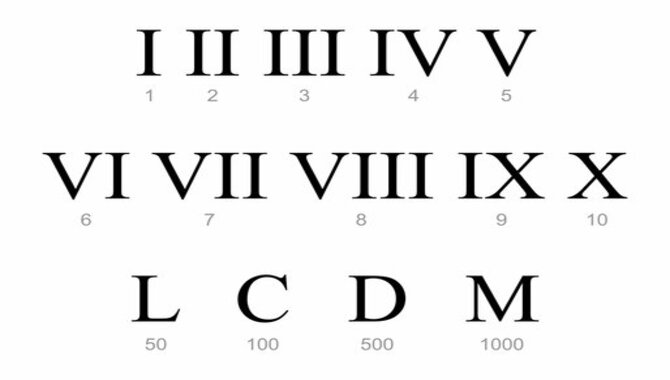
Fancy Roman numerals are the most beautiful form of text. They’re typically seen in books, documents, magazines, and newspapers.
They’re also used in celebration places such as weddings, graduations, and birthdays. Fancy Roman numerals are the fancy version of roman numerals. Unlike roman numerals, fancy roman numerals do not have repeating 0s.
These numeral styles are commonly used in books and newspapers to make it easier for the readers to understand the information. If you want to write fancy roman numerals in your documents and essays, you’ve come to the right place. Here we will discuss how to create Fancy Roman numeral fonts, tips, and tools to help you write them faster.
What Are Fancy Roman Numerals?
Fancy Roman numeral fonts are a way of showcasing the elegance and sophistication of the ancient numeral system. Ancient Romans originated the Roman numeral system and used it to count on fingers. It involves seven symbols, I, V, X, L, C, D, and M.
Roman numerals are globally recognizable and have various uses, such as indicating a work’s edition or part of a series. You can also personalize them onto necklaces as a birth date bar or engagement/wedding date charm.
You can add overlines to the Roman numerals to add one thousand for each “M,” making it easier to represent larger numbers. Fancy Roman numeral fonts add an aesthetic flair to whatever they are used for and unlock the beauty of Roman numerals, making them more accessible and understandable for modern audiences.
How To Create Fancy Roman Numerals?
Fancy Roman numeral fonts can add sophistication and elegance to any design. But creating them can seem daunting at first. Luckily, there are many ways to create fancy Roman numerals easily.
The Roman symbol keyboard is available on most devices, including online games. People in ancient Rome originated Roman numerals based on hand counting, and various fields have used them since then. Excel and Google Sheets have built-in formulas that you can use to convert numbers into Roman numerals.
Many sample Roman numeral fonts are also available for tattoos or graphic design. When creating Roman numerals, it’s essential to remember the standard symbols – I for 1, V for 5, X for 10, L for 50, C for 100, D for 500, and M for 1000. Get creative, and unlock the beauty of fancy Roman numeral fonts to add an edge to your designs.
Preparing The Document
Fancy Roman numeral fonts can add an elegant touch to any document or project. If you want to create them yourself, there are a few ways to start. First, you can use Excel or Google Sheets to convert numbers to Roman numerals with the “=ROMAN(CELL)” formula.
Alternatively, you can use a text symbol keyboard to select and copy Roman numerals and then paste them into any application. If you want to change the style and location of page numbers, you can use the \pagenumbering command and the fancyhdr package.
Write dates in Roman numerals with a delimiter, such as a dot or a slash. To create a polished final product, it’s important to practice mistake-free writing and polish your grammar. With these tips, you can unlock the beauty of fancy Roman numeral fonts and add a sophisticated touch to any project.
Adding The Numeral Styles
To create fancy Roman numerals, start by learning to type the symbols on any device or application. Once you understand the symbols, you can add different styles to your numerals to make them stand out.
The evolution of Roman numeral fonts has included cursive styles, which are particularly popular in tattoos. With a free and easy-to-use Roman numeral font generator, you can choose from multiple font styles and preview each before deciding on your favorite. Whether you’re creating something for personal or professional use, a Roman numeral font can help you unlock the beauty of this classic font.
Applying The Numeral Styles To Text
If you want to add a touch of elegance to your typography, fancy Roman numeral fonts are a great option. You can create fancy Roman numerals easily, and there are multiple ways to achieve this. One way to create fancy Roman numerals is to change the style of page numbers. You can use the Arabica, alphabetic, or Roman numeral styles. The fancyhdr package can change the location of the page numbers.
You can use a symbol keyboard to type or paste Roman symbols. People commonly use these symbols for labeling and indicating purposes. PicsArt also provides a quick and easy way to copy and paste Roman numeral symbols. By applying these numeral styles to your text, you can unlock the beauty of fancy Roman numeral fonts and add a touch of sophistication to your typography.
Customizing The Look And Feel Of The Numeral Styles
Roman numeral symbols are a classic way to label and stylize anything from wedding invitations to fashion brand logos. Fancy Roman numeral fonts take this to the next level, with many different customizations available to match any style. One such font is the Bohemian Stylish Luxury Serif Font, which radiates class and elegance. It’s perfect for special occasions and high-end design needs.
The Roman Sophisticated Serif font is another option. It features smooth curves and neat lines, making it ideal for logos and product packaging. There are many ways to incorporate fancy Roman numeral fonts into your designs. You can use apps like Picsart to copy and paste the symbols or shop online for specific fonts that match your aesthetic. No matter how you use them, fancy Roman numeral fonts are a great way to add a touch of sophistication to your designs.
Tools For Writing Fancy Roman Numerals
Fancy Roman Numeral fonts are a great way to bring a touch of classic elegance to your writing. Various tools are available to help you write roman numerals easily. You can use a roman numeral keyboard, which allows you to add roman numerals to any device or app. The roman numeral system, which originated in ancient Rome, uses seven symbols to represent numbers.
People used Roman numerals as a numeral system until the late middle ages. Roman cursive is an example of the evolution of the roman font. You can use fancy Roman Numerals for tattoos; various font generators are available to help you choose the perfect font for your ink. However, it’s important to note that the traditional roman numeral system can only represent numbers up to 3,999.
Tips For Making The Most Of Your Fonts
Using fancy Roman numeral fonts can enhance the look and feel of any design or project. From personalized gifts to unique jewelry, there are numerous ways to make the most of your fonts. Shopping for Roman numeral fonts offers a range of possibilities, including customizing bar necklaces with font options and platings, downloading embroidery fonts with multiple sizes and formats, and purchasing SVG cut files and clip art for various projects.
Do you want to create unique designs for tattoos? Roman numeral tattoo stamps with Procreate brushes can be a game-changer. You can also explore innovative ways to incorporate Roman numeral fonts into your DIY projects, such as home decor or party invitations. These fonts are becoming increasingly popular, and rightly so. Unlock the beauty of fancy Roman numeral fonts and give your creations an added touch of elegance and sophistication.
Fancy Roman numerals are a perfect way to spice up your documents. You can use them for various applications, from business reports and articles to creative designs. They’re versatile and easy to read so you can use them in any document. Fancy Roman numeral fonts not only look great, but they also help you make an impact with your writing and design.
Fancy Roman Numerals are versatile typefaces that can be used for any writing. They’re especially ideal for short, simple texts and logos. Whether you need numerals to stand out in a busy font lineup or want to try something new and unique, Fancy Roman Numeral fonts are a great option.
1. What Is The Best Font For Roman Numerals?
Ans: It completely depends on personal preference and the context in which Roman numerals will be used. However, some popular font styles for Roman numeral use include Metal typeface, Century Gothic, and Univers.
2. Is There A Roman Numeral Font?
Ans: Yes, there is a Roman numeral font! The Roman Numeral Font Generator can convert text to various Roman numeral fonts for free. This allows you to easily type in numerals like 1, 2, 3, etc. You can also create unique and luxurious designs for laptops, mobile phones, and PC with the help of the Roman Numeral Font Generator.
3. What Is Cxxxix In Roman Numerals?
Ans: 139 in Roman numerals is represented by the letter Cxxxix. Cxxxix is the eighth letter of the Roman alphabet, corresponding to the number 139. Roman numerals were developed in ancient Rome and involved seven symbols, I, V, X, L, C, D, and M, for counting.
Basic rules for interpreting Roman numerals include adding smaller letters to smaller letters and subtracting smaller letters from bigger ones. The traditional Roman numeral system was used for numbers up to 3,999.
4. What Is The Font Style Of 18 In Roman Numerals?
Ans: The 18 in Roman numerals font style can be written in various fonts, including Rhymus Queen Gothic Blackletter. The most popular way to write 18 using Roman numerals is by using Roman Handwriting font, which is available for commercial use. You can use the command to set the style of page numbers, including lowercase or uppercase letters or Roman numerals, to write 18 in Roman numerals.
5. How Can I Write Fancy-Looking Roman Numerals?
Ans: To create nice, fancy-looking Roman numerals, you can use a website’s Roman text symbol keyboard to copy and paste the symbols. For example, you can use tex.stackexchange.com’s Roman numerals keyboard to get started easily.